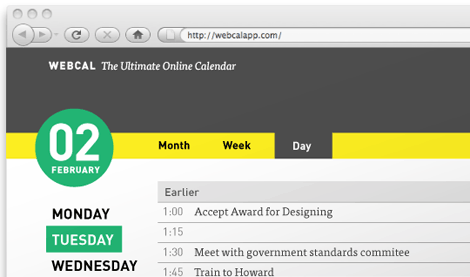
Font Shop Introduces Web FontFonts
Go beyond the same old default fonts. FontShop International is releasing more than 30 of the most successful FontFont families as Web FontFonts, including FF DIN, FF Meta, FF Dax, and FF Kievit.
For nearly 15 years, web designers had two frustrating choices when it came to type on the web: use one of the few “web safe” fonts preinstalled on major operating systems, or substitute text with images and Flash/JavaScript hacks. Not anymore. Recent developments in web standards and font formats make it possible to render HTML text in typefaces other than the same old default fonts. Today, FSI FontShop International is leading the charge to offer fonts designed specifically for web use. More than 30 of the most successful FontFont families are now available as Web FontFonts, including FF DIN, FF Meta, FF Dax, and FF Kievit.
This long-awaited step enables a more seamless and effective transition from print design to the web. An organization whose identity uses FF DIN, for example, can now deliver that experience on the web, using true HTML text.
Any web developer will tell you that HTML text is far more flexible and easier to update than an image. Using Web FontFonts gives you type that is both customized and dynamic.
Search engines don’t like images nearly as much as text. Now all the branded typography on a page can be found and indexed. Text is also more accessible to users with disabilities.
Because HTML text can be resized, copied, and edited by website visitors, you can create stylized interfaces, forms, and applications without relying on Flash or other hacks.
Why Web FontFonts?
They look great. Great care was taken to optimize Web FontFonts for display on nearly any screen, whether that screen is connected to a Mac or driven by Windows with ClearType switched on.